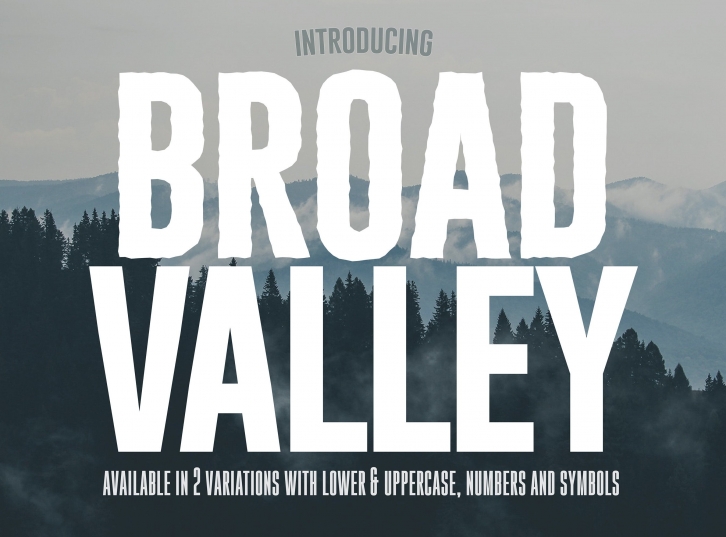
This extra-bold display font is perfect for your heavy titles and headlines. Broad Valley adds a bold and iconic style to all your artwork, both retro and modern. It’s perfect for any graphic design or typography project that requires a solid mood. A font with a big fat personality that will make all your artistic creations come alive with style and weight.